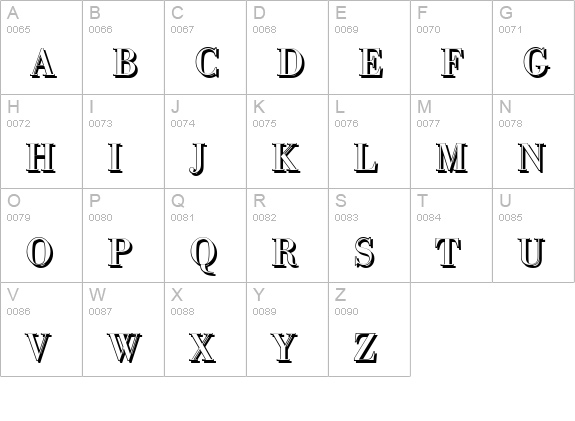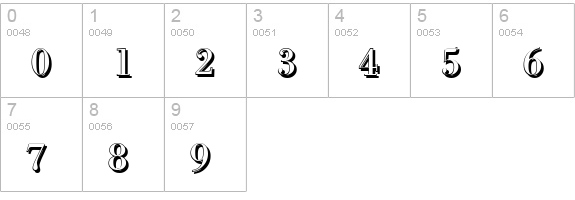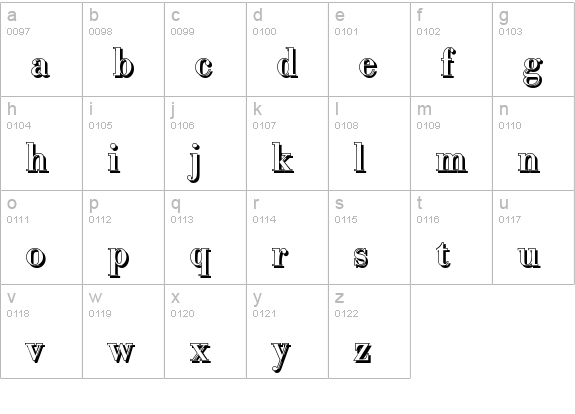
BodoniSh-Regular is the standard, neutral variant in the BodoniSh typeface family \xE2\x80\x94 well suited to general body text, paragraphs, and standard typographic work.
BodoniSh-Regular is a stylish and elegant font that exudes sophistication and modernity. With its clean lines and sharp serifs, this typeface is perfect for creating professional and refined designs. Whether used in print or digital media, BodoniSh-Regular commands attention and leaves a lasting impression. What sets BodoniSh-Regular apart is not just its timeless aesthetic, but also the fact that it is available for free. Yes, you read that right - this high-quality font can be downloaded at no cost from FontsMarket.com. Now you can elevate your projects without breaking the bank, thanks to the accessibility of BodoniSh-Regular. Don't miss out on this opportunity to enhance your designs with a premium font that won't cost you a penny. Download BodoniSh-Regular today and watch your creations come to life with style and sophistication.